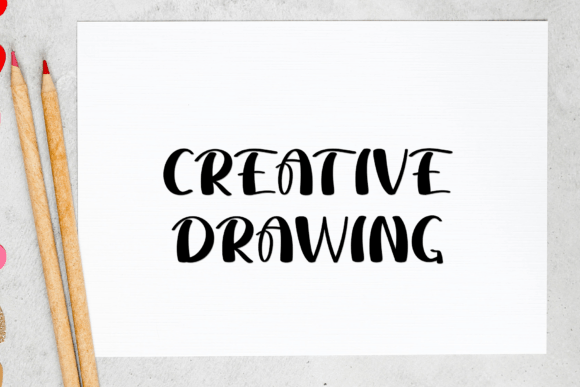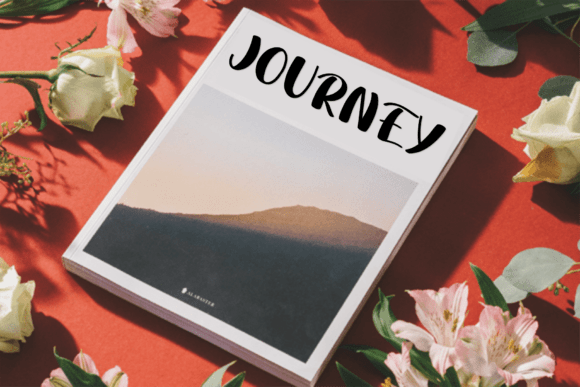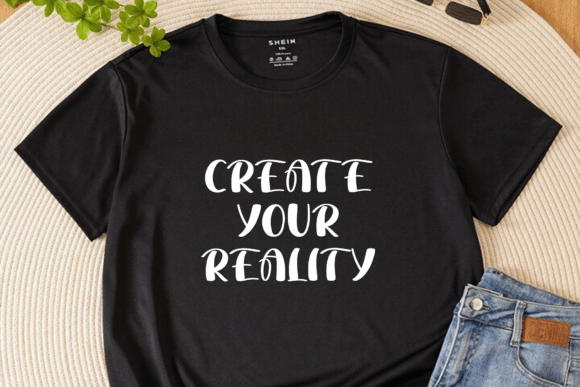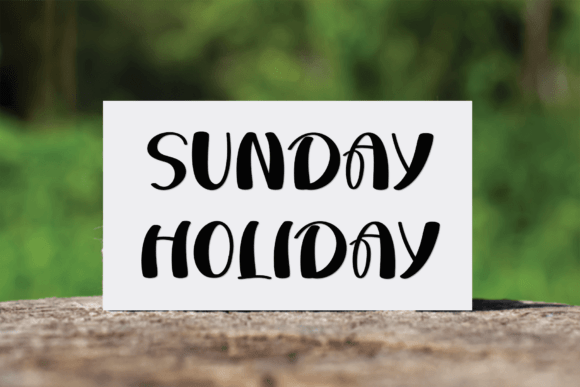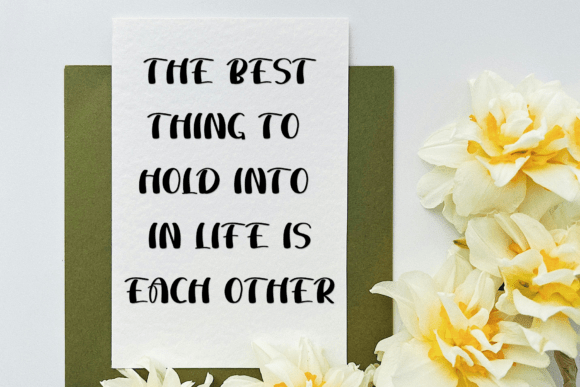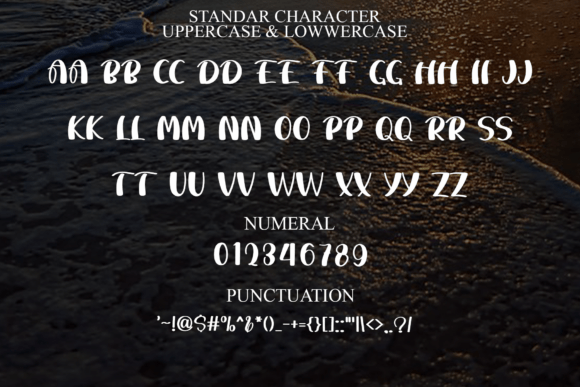
The Magic of the Holiday Season: Introducing Chubbydolls Font
There’s nothing quite like the feeling of unwrapping a beautifully designed holiday card, or seeing a festive storefront display that catches your eye. It’s a moment that sparks creativity and inspires us to bring a little more joy to our designs. For those moments, we have the perfect solution – Chubbydolls Font, a merry and enchanting typeface that captures the essence of the holiday season.
With its decorative elements and whimsical flair, Chubbydolls Font adds a touch of magic to your designs. Perfect for greeting cards, gift tags, and holiday-themed projects, this font brings a cheerful and nostalgic ambiance to your words. Whether you’re a seasoned designer or just starting out, Chubbydolls Font is a valuable addition to your toolkit, allowing you to let your typography shine with ease.
Key Features of Chubbydolls Font
- Font Style: Hand-Drawn, Whimsical, and Playful
- Character Count: 200+ characters, including uppercase and lowercase letters, numbers, and special characters
- Unique Characteristics: Features a rounded and chunky design, perfect for creating a cute and friendly atmosphere in designs and typography
Chubbydolls Font Review
At first glance, I thought Chubbydolls Font was going to be a quirky, fun addition to any project. And in some ways, it delivers. ✨ The bold lines and playful curves of this font make it perfect for children’s books, cartoons, or any project that needs a lighthearted touch. The font’s irregularities also add a nice, hand-drawn feel that can be quite charming.
However, as I delved deeper into the font, I started to notice some limitations. ⚠️ The font is not suitable for large blocks of text, as the irregularities can make it difficult to read. Additionally, the font’s bold lines can make it feel overwhelming when used in excess. I also found that the font’s character set is not as extensive as I would have liked, with some characters feeling like they were afterthoughts.
Overall, I would say that Chubbydolls Font is a great choice for projects that require a playful, whimsical feel. But for more serious or large-scale projects, I would recommend looking elsewhere. ✨ With a bit more refinement, this font could be truly special.
- Great for: children’s books, cartoons, lighthearted projects
- Limited by: suitability for large blocks of text, character set
Chubbydolls Font is ideal for creating playful, whimsical designs. Use it for:
- Food labels and packaging
- Quirky marketing materials
Remember to experiment with different font sizes, colors, and styles to get the most out of Chubbydolls Font.
Alternatives to Chubbydolls Font for Designers
Pacifico is a beautiful, elegant script font perfect for creating a luxurious and sophisticated look. It is ideal for use in branding, packaging, and advertising where a touch of sophistication is required. Pacifico has a similar cursive feel to Chubbydolls Font but with a more refined and polished appearance.
Great Vibes is a fun, energetic script font that is great for creating a playful and youthful vibe. It is ideal for use in social media graphics, blog posts, and other digital content where a casual and approachable tone is desired. Great Vibes has a more relaxed and casual feel compared to Chubbydolls Font, making it perfect for designers who want to create a more laid-back atmosphere.
Carolyna Pro is a modern script font that is perfect for creating a stylish and sophisticated look. It is ideal for use in branding, advertising, and editorial content where a touch of elegance is required. Carolyna Pro has a similar cursive feel to Chubbydolls Font but with a more modern and sleek appearance.
Alex Brush is a beautiful, elegant script font that is perfect for creating a luxurious and sophisticated look. It is ideal for use in branding, packaging, and advertising where a touch of sophistication is required. Alex Brush has a similar cursive feel to Chubbydolls Font but with a more refined and polished appearance, making it perfect for designers who want to create a high-end look.